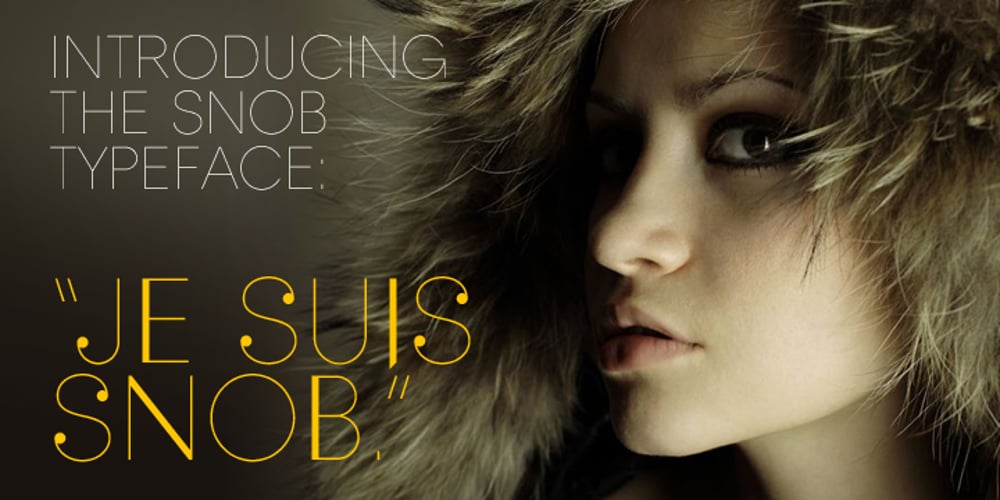
Snob Font Family was designed by Juraj Chrastina and published by Juraj Chrastina. Snob contains 1 styles and family package options. Snob is a high-contrast display face with a touch of luxury. It represents a classy typeface with a fashion magazine style. You can easily combine Snob with Ambassador, which was the base for creating Snob.